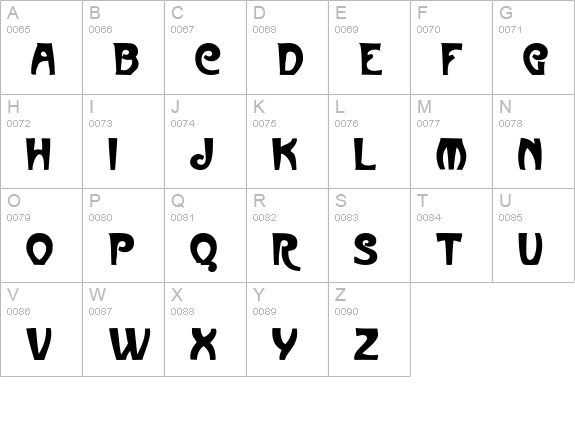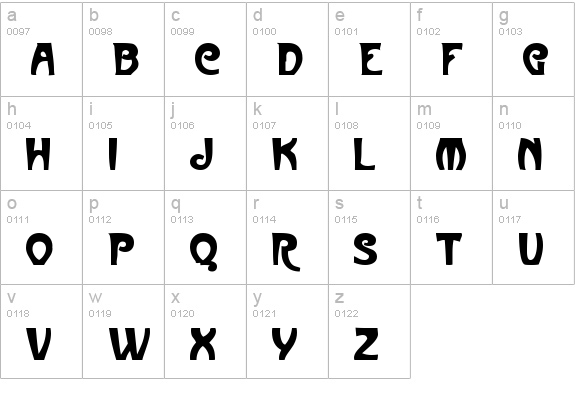
MullinsCaps Bold is a strong, high-contrast variant in the MullinsCaps typeface family \xE2\x80\x94 well suited to headlines, attention-grabbing titles, and strong calls-to-action.
MullinsCaps Bold is a striking and versatile display font that exudes strength and modernity. Its bold and uppercase letterforms command attention and make a bold statement in any design project. With its clean lines and unique character shapes, MullinsCaps Bold is perfect for headlines, logos, posters, and more. The best part? MullinsCaps Bold is available for free download at FontsMarket.com. This means you can easily incorporate this eye-catching font into your projects without any cost. Whether you're a designer looking to add a touch of boldness to your creations or a business owner in need of a standout logo, MullinsCaps Bold is the perfect choice. Download it today and elevate your designs with this powerful and stylish font.